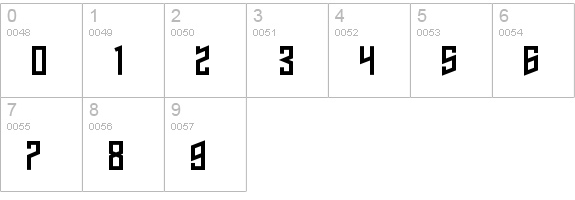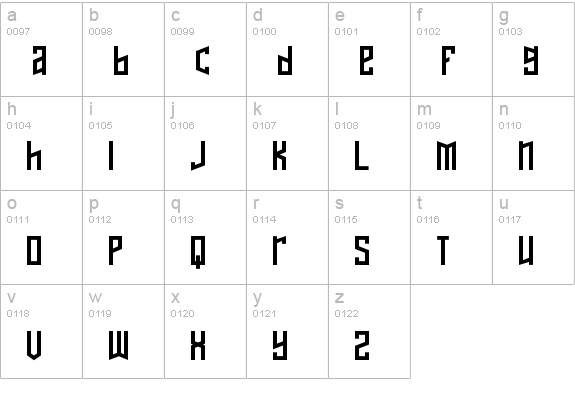
NAFTAlene Font Details
NAFTAlene font is a modern and stylish typeface with a sleek and elegant design. It features clean lines and a contemporary feel, making it perfect for various design projects. The font exudes a sense of sophistication and professionalism, making it ideal for use in branding, logos, headlines, and more. What sets NAFTAlene font apart is that it is available for free. You can easily download this versatile font at FontsMarket.com and use it in both personal and commercial projects without any restrictions. With its bold and eye-catching appearance, NAFTAlene font is sure to make a statement and elevate your designs to the next level.